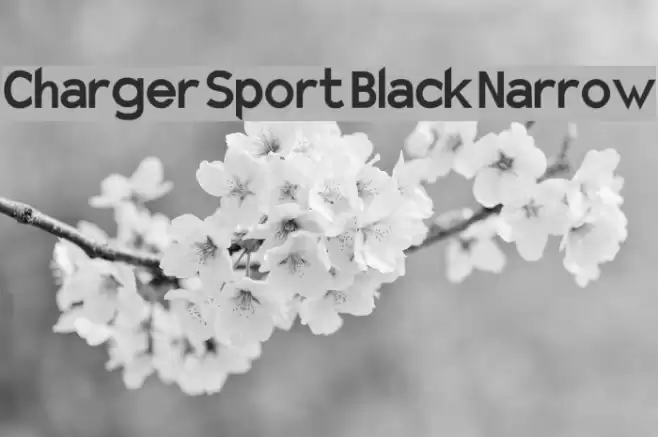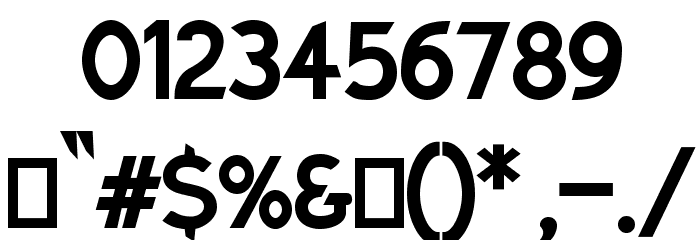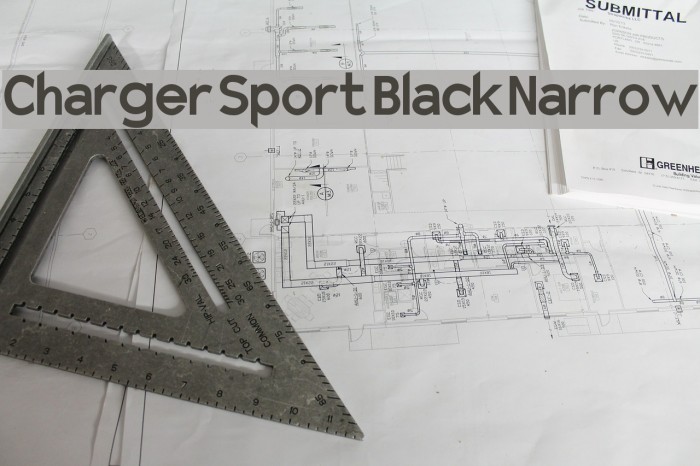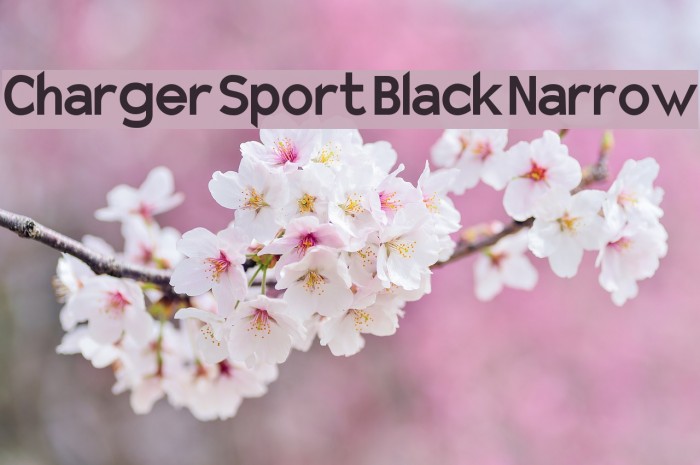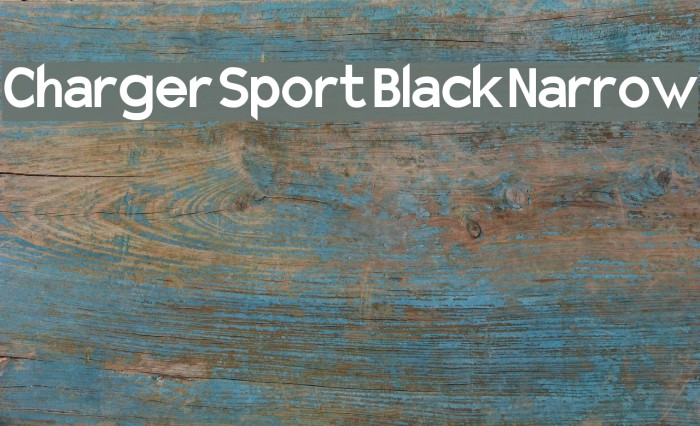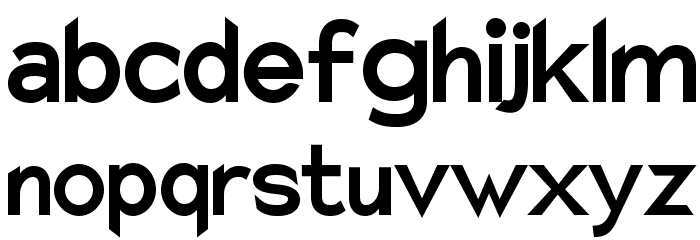
Charger Sport Black Narrow Font
Charger Sport Black Narrow Description
This font features a bold and modern sans-serif style with clean, geometric lines and a strong presence. The characters are uniformly thick, contributing to a consistent and powerful visual impact. The uppercase and lowercase letters maintain a balanced proportion, while the numerals are clear and easily distinguishable. Special characters are designed with the same boldness, ensuring they stand out effectively. This font's narrow width allows for efficient use of space, making it ideal for headlines and titles where impact is crucial.
A bold, modern sans-serif font with geometric lines and a narrow width from Uncategorized fonts.
- Proposed Projects: Ideal for sports branding, dynamic posters, modern web design, and impactful headlines.